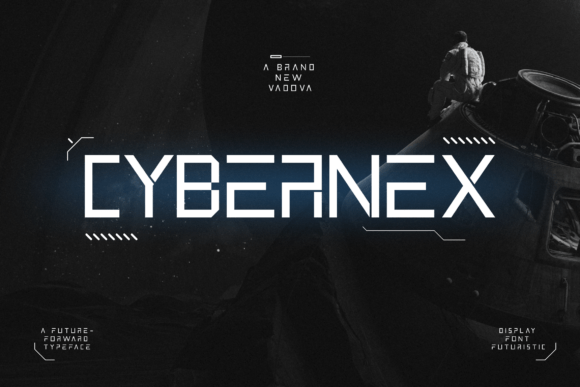
The Future is Now: Unlocking the Power of Cybernex Font
Have you ever stared at a blank screen, waiting for inspiration to strike? For designers, this moment is all too familiar. It’s the spark that ignites a creative journey, and it’s exactly what happened when the Cybernex Font was born. This futuristic display font is the result of a passion for modern technology, space exploration, and sci-fi aesthetics, all distilled into a bold, precise, and forward-thinking typeface.
Cybernex Font is designed to deliver a powerful futuristic identity across digital and print media. Its clean all-caps structure, sharp geometric forms, and consistent proportions make it a valuable asset for designers looking to create high-impact visual compositions. Whether you’re working on a tech startup’s branding or a sci-fi novel’s cover, Cybernex Font is the perfect tool to convey a sense of innovation and cutting-edge style.
- Unique Characteristics: The font features a futuristic and high-tech aesthetic, with a distinctive blend of geometric shapes and organic elements.
Cybernex Font Review
Overall, I think the Cybernex Font is an interesting and somewhat bold choice for a font. Here are some of the things that stand out to me:
- ✨ It’s definitely unique and eye-catching, which can be a great thing for designers looking to make a statement. The futuristic aesthetic could work well for sci-fi or tech-related projects.
- ✨ The font is well-designed and feels cohesive, with a clear direction and intent behind the design.
- ✨ It’s also surprisingly legible, which is a testament to the designer’s skill in balancing form and function.
That being said, there are some limitations to the font that might make it less appealing to some designers:
- ⚠️ It may be too bold or overwhelming for certain types of projects, such as business or academic writing.
- ⚠️ The font could benefit from more character variations (e.g. italics, bold, etc.) to make it more versatile.
- ⚠️ Some users may find the font’s futuristic aesthetic to be cheesy or overdone.
Overall, I think the Cybernex Font is a solid choice for designers who are looking for something bold and eye-catching. However, it may not be the best fit for every project, and designers should carefully consider the tone and style they’re aiming for before using it.
Tips for Getting the Most Out of Cybernex Font
Here are some tips to help you get the most out of Cybernex Font:
- Use Cybernex Font for headings and titles to create a strong visual impact.
- Pair Cybernex Font with other fonts to create a balanced and harmonious design.
Cybernex Font is ideal for:
- Creating futuristic and technological designs.
- Designing digital products, such as websites and mobile apps.
- Creating sci-fi and fantasy-themed designs.